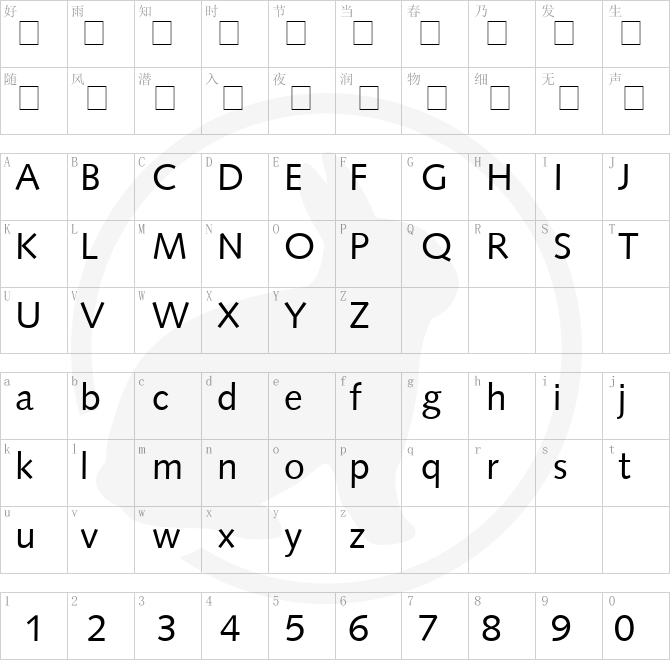
- Font Name:Facile SSi
Facile-SSi.ttf is a very beautiful artistic font, Facile-SSi.ttf is widely used in the design and printing of various books and pictures,Facile-SSi.ttf has a strong visual impact,Facile-SSi.ttf is a commonly used font in newspapers, magazines and books, and is used in posters, e-commerce Poster design, store design, logo design, font design and other fields.Facile-SSi.